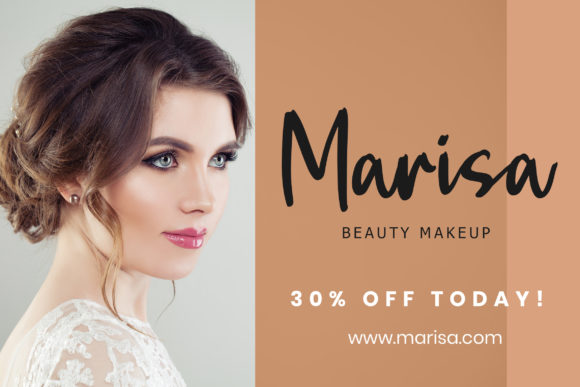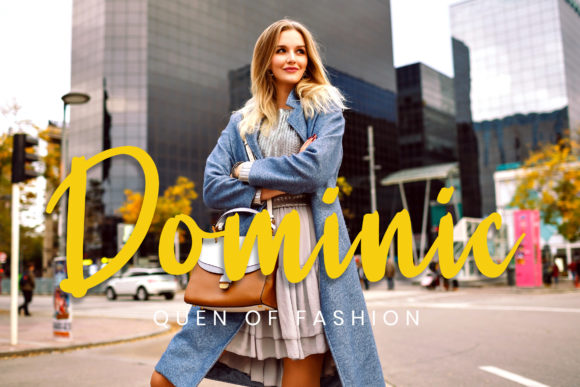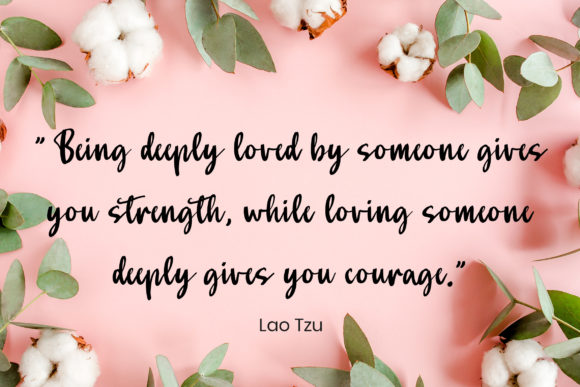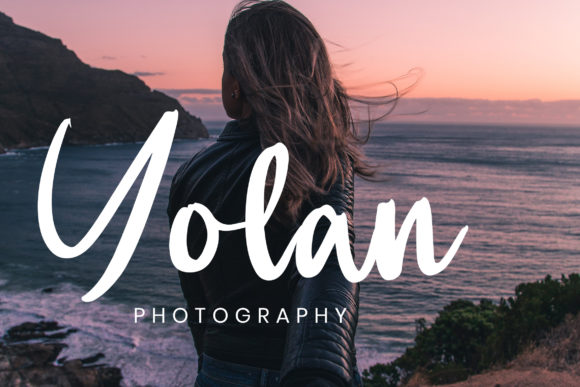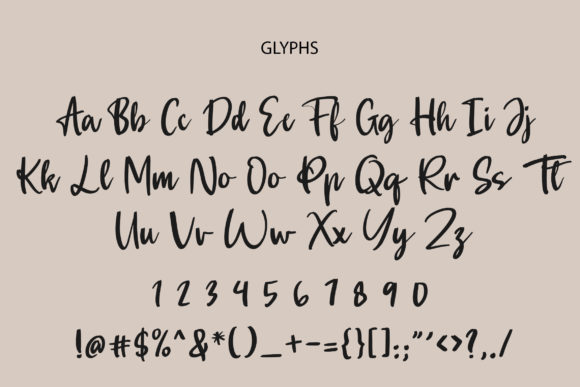
The Designer’s Delight: Anisah Font
I’ll never forget the time I was working on a wedding invitation design for a client, and I just couldn’t seem to find the perfect font. The project required a touch of elegance, a dash of whimsy, and a whole lot of personality. That’s when I stumbled upon Anisah Font, a casual handwritten font that completely transformed my design. In this article, I’ll share my experience with Anisah, its features, and how you can make the most of it in your designs.
An Honest Review of Anisah Font
- ✨ Anisah’s casual, handwritten style adds a special touch to any design, making it perfect for creative projects.
- ✅ It’s incredibly versatile, suitable for logos, wedding designs, social media posts, advertisements, product packaging, labels, and more!
- 💫 The font’s unique character and charm make it stand out from more traditional fonts.
While Anisah Font is an excellent choice for many designs, there are a few things to keep in mind:
- ⚠️ As with any handwritten font, it may not be the best choice for very long blocks of text, as it can be a bit harder to read.
- 🤔 Some users may find that the font’s casual style doesn’t fit with their brand’s tone or personality.
A Practical Guide to Using Anisah Font
- Experiment with Anisah’s OpenType features, such as glyphs and stylistic alternates, to add more personality to your design.
The Story Behind Anisah Font
Anisah Font was created with the intention of providing a unique, handwritten font that would add a special touch to designs. The font’s creator drew inspiration from everyday handwriting, aiming to capture the imperfections and charm of handwritten text. The result is a font that’s both elegant and approachable, perfect for a wide range of creative projects.
Q: What type of designs is Anisah Font best suited for?
A: Anisah Font is perfect for designs that require a touch of personality, such as logos, wedding designs, social media posts, advertisements, product packaging, labels, and more!
Q: Is Anisah Font available in different styles or weights?